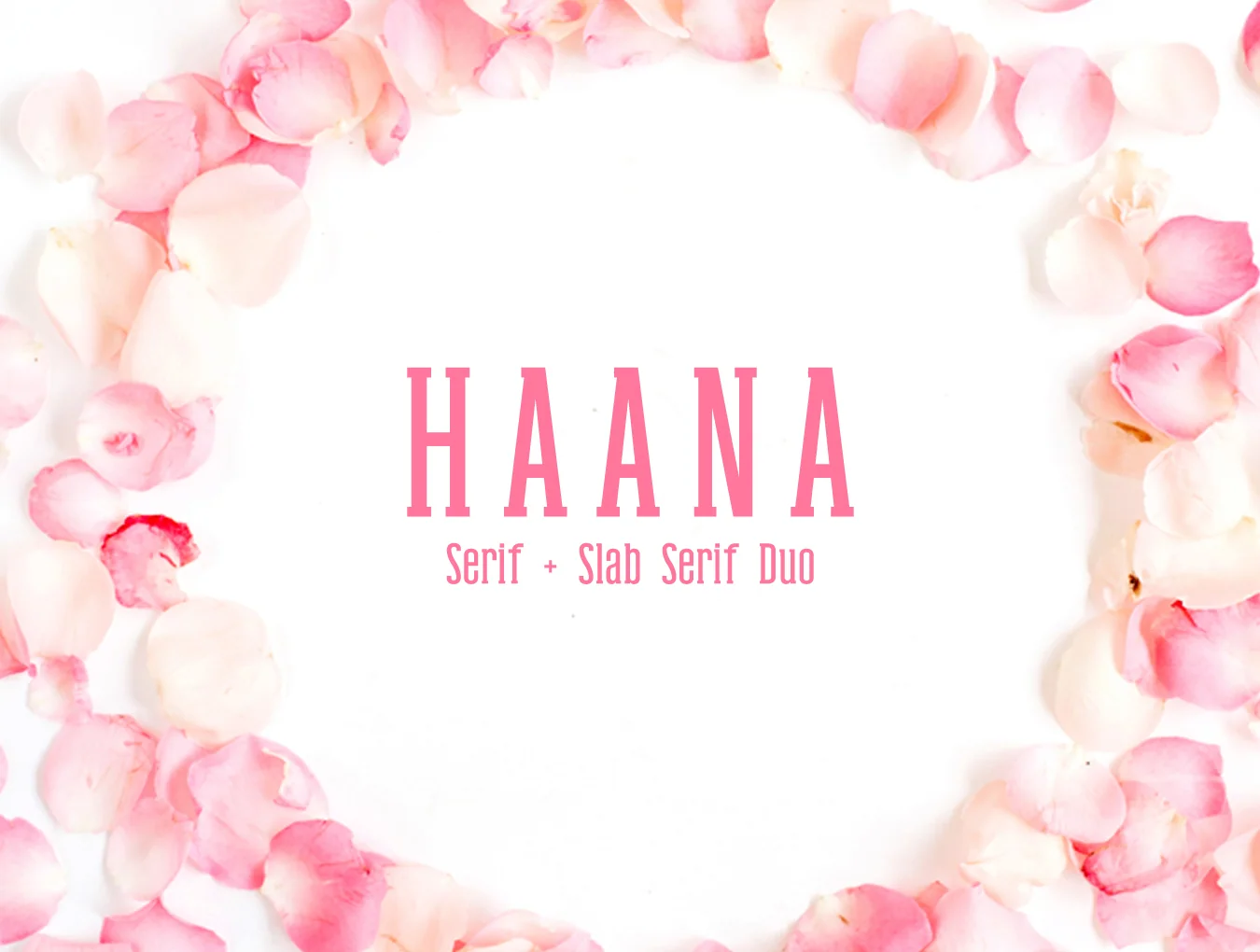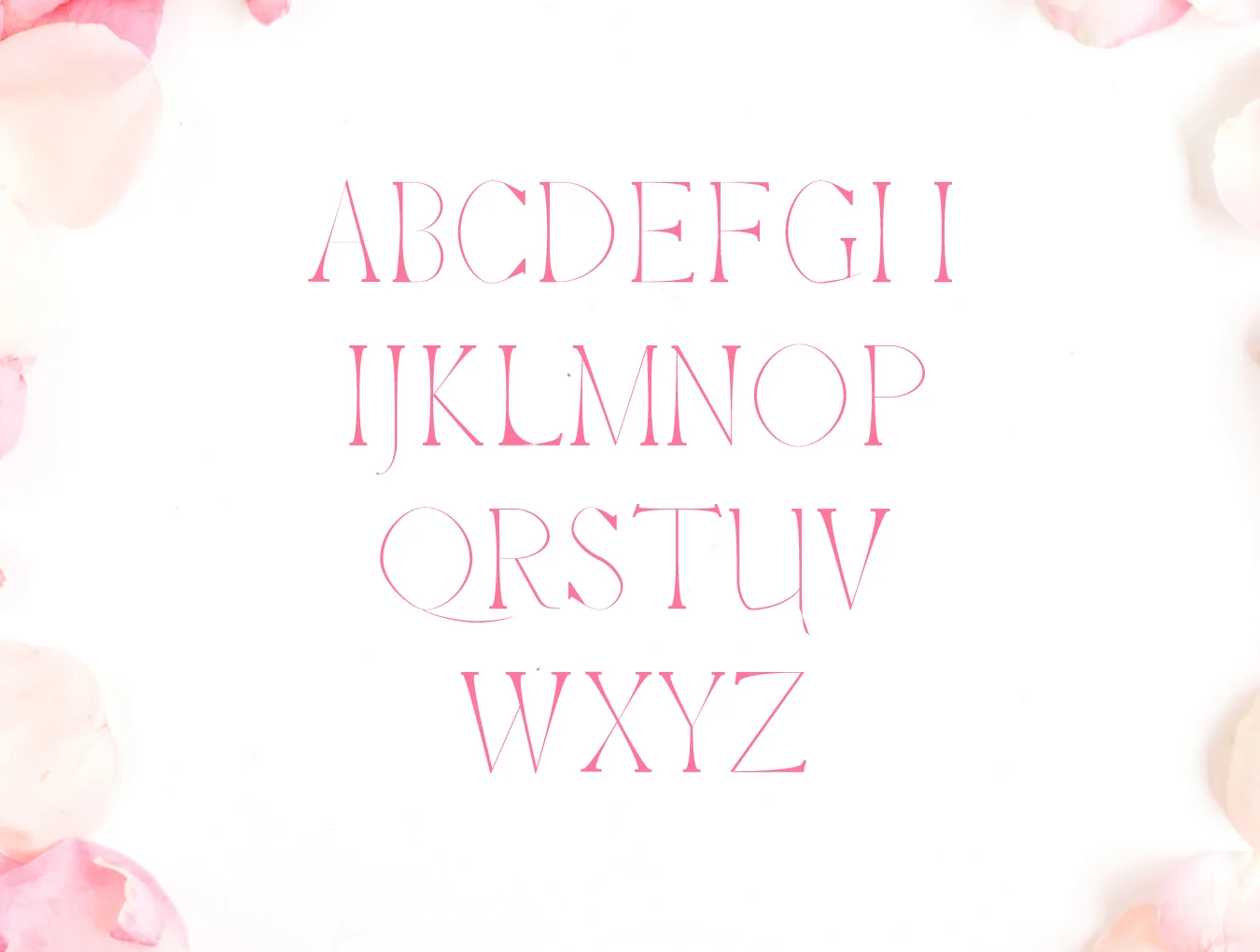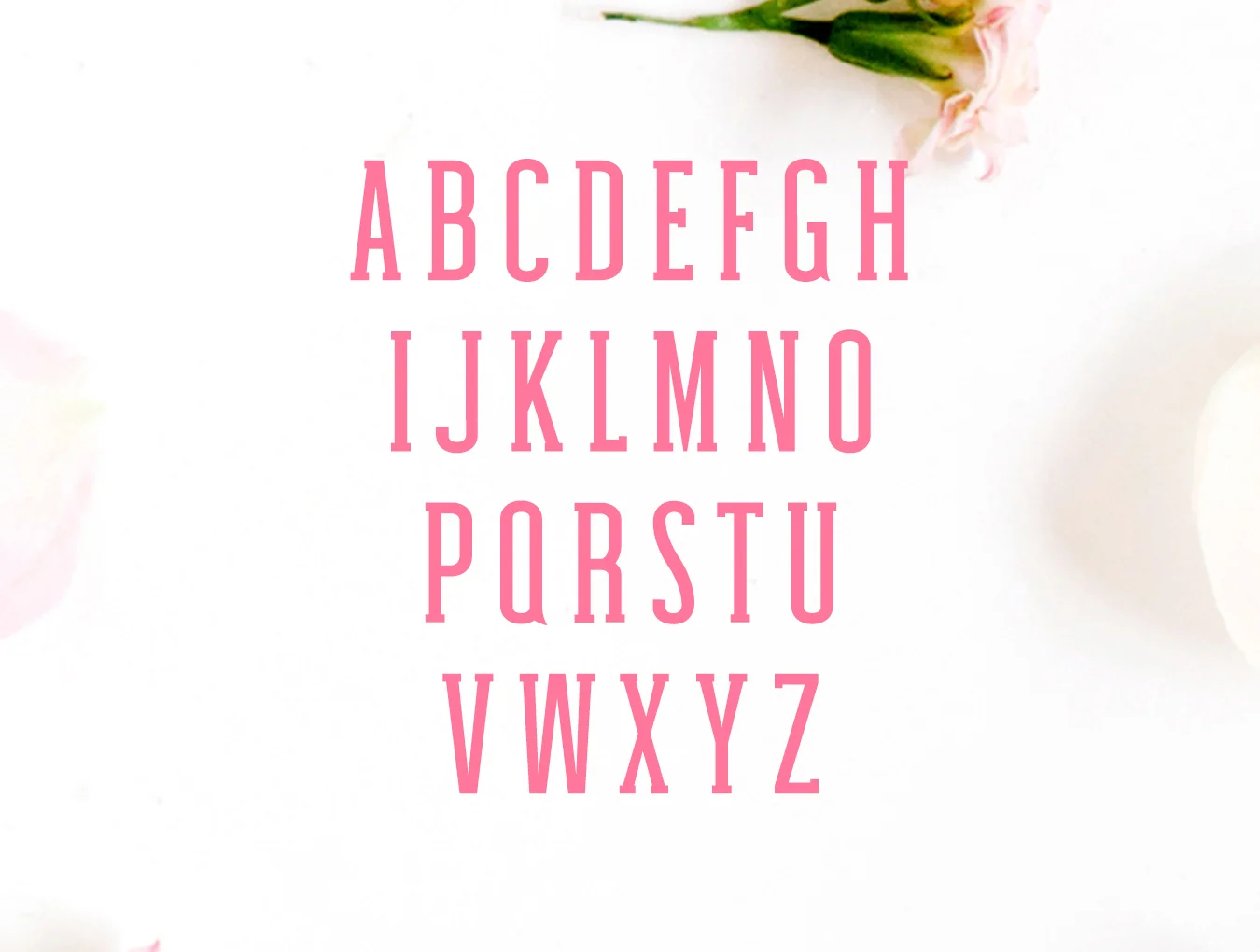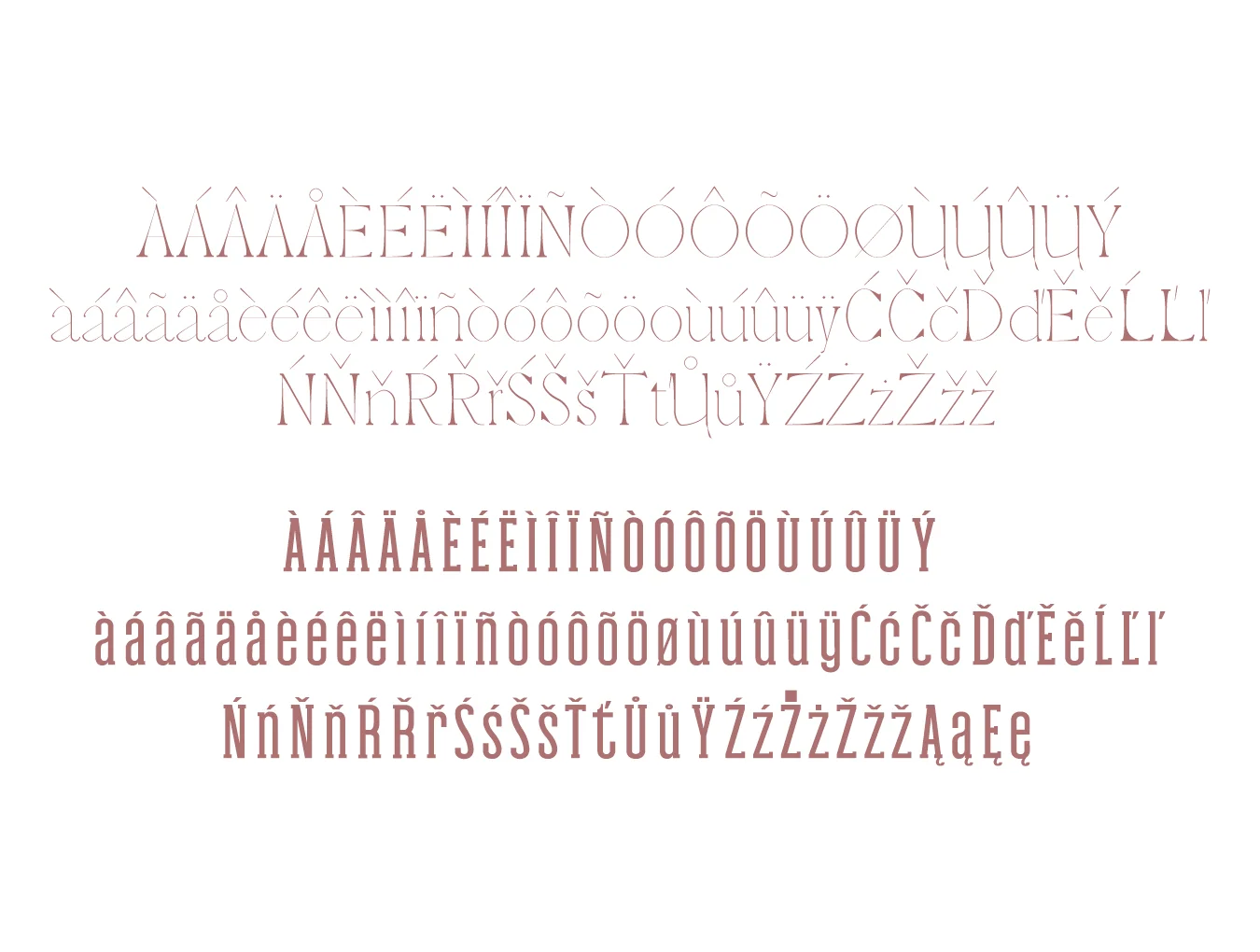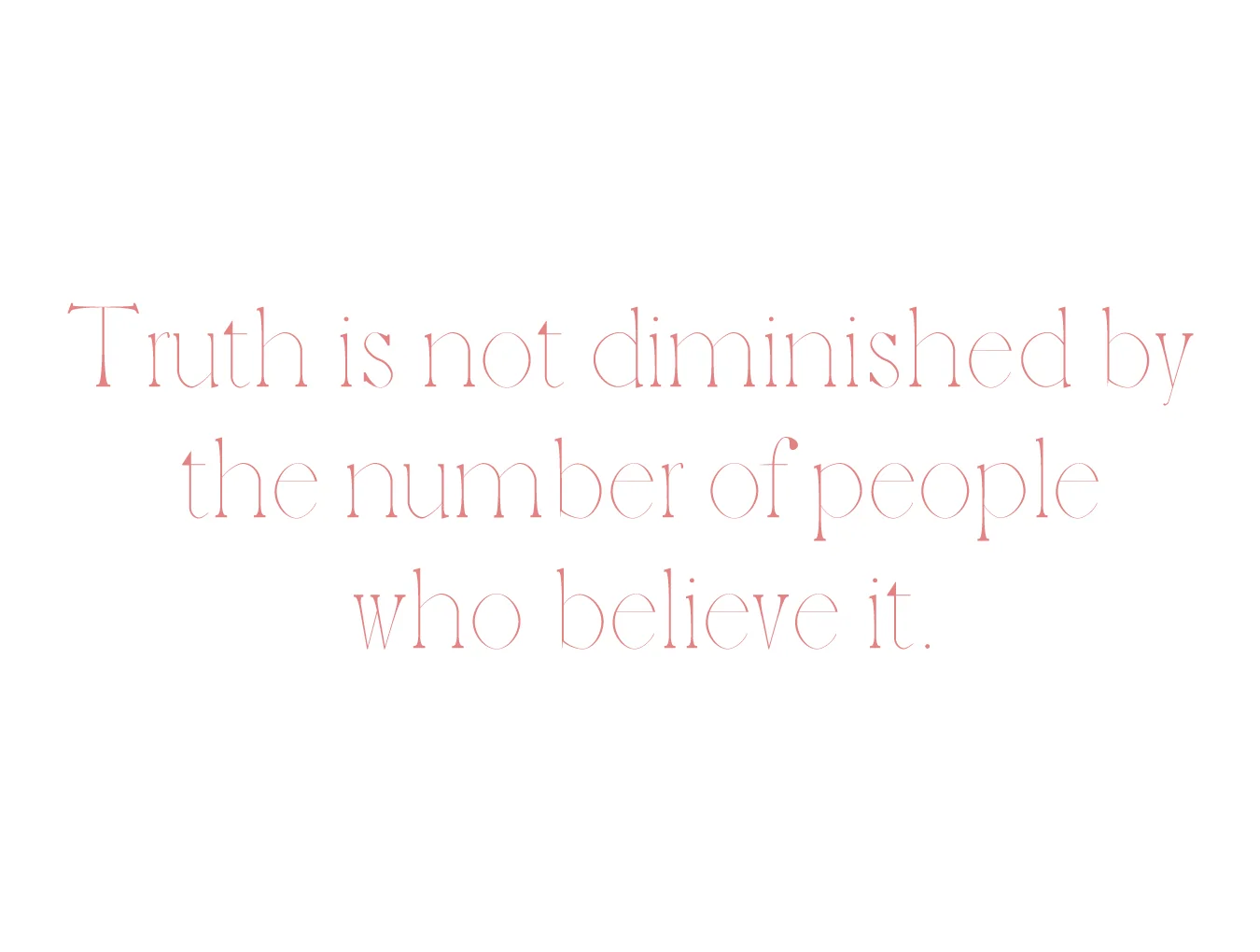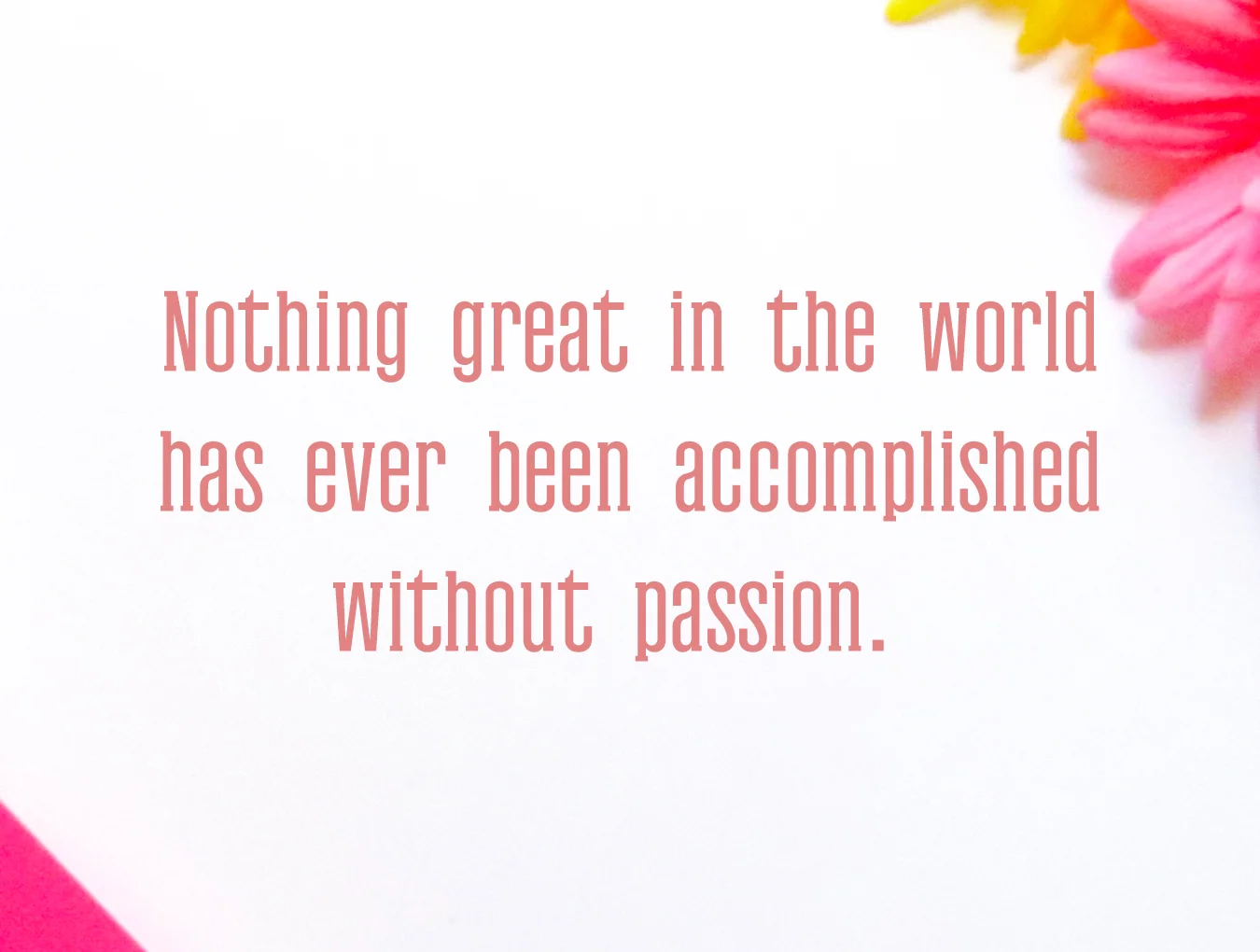
Haana Slab Serif
Haana Slab Serif Duo: 3-Font Set
Serif and slab-serif type styles
Ceona set with 96 glyphs
Standard regular font weight
Hanna Duo is an elegant serif and slab typeface, ideal for wedding invitations, greeting cards, T-shirts, branding, logos, merchandise, social media graphics, product packaging, and other creative designs. It includes standard characters, punctuation, and alternate glyphs.